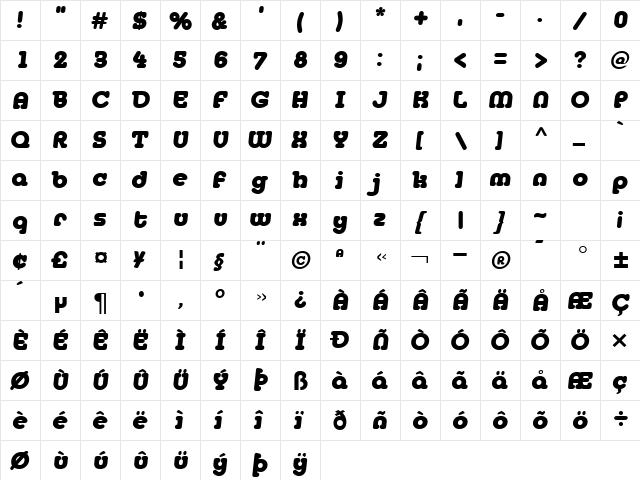
Janis Regular
Design Context for Janis Typeface
Janis offers clean, dependable letterforms without strong stylistic allegiance, making it a practical choice for designers who need flexibility.
Pro Tip: Use Janis in both headline and body roles to test its range before committing to a single application.